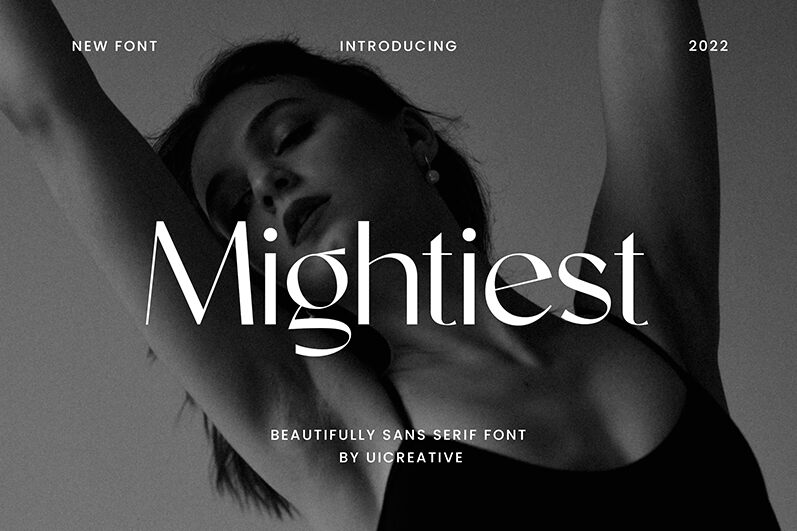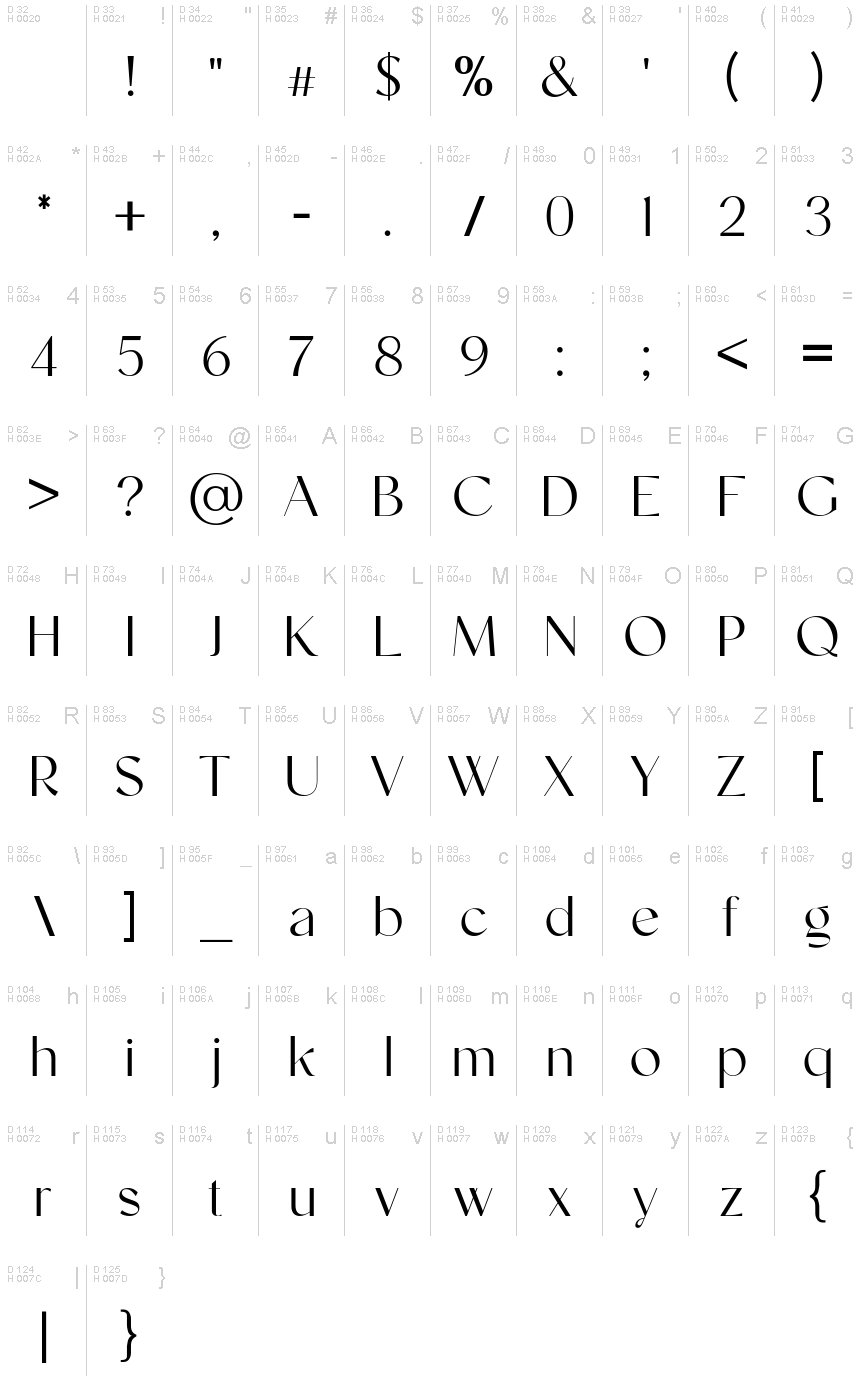
Mightiest
Mightiest by UI Creative is a typeface that exudes elegance and sophistication. Its strikingly high contrast between thick and thin strokes adds a dramatic flair, making it perfect for headlines and branding materials. The refined serifs and sleek lines create a timeless aesthetic that commands attention without overwhelming the viewer.
Ideal for luxury branding, editorial design, and classic-themed projects, Mightiest stands out with its bold yet graceful presence. Whether gracing the cover of a high-end magazine or elevating the look of premium packaging, this font offers versatility paired with distinctive style. Let Mightiest be your go-to choice for creating memorable, impactful designs that leave a lasting impression.